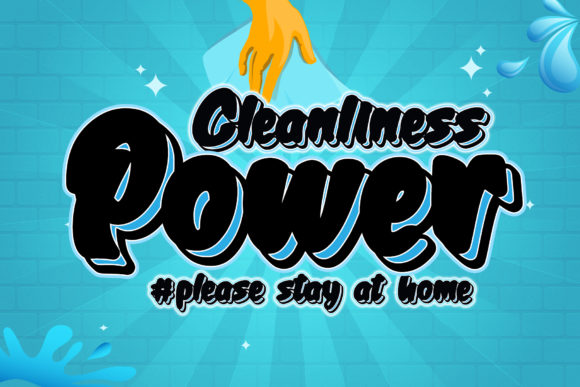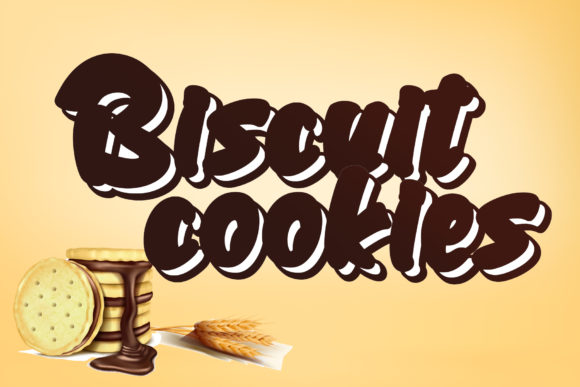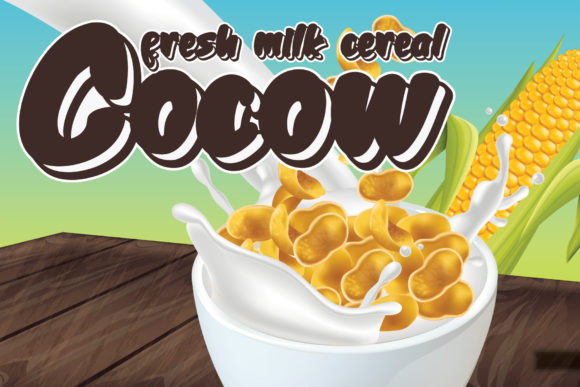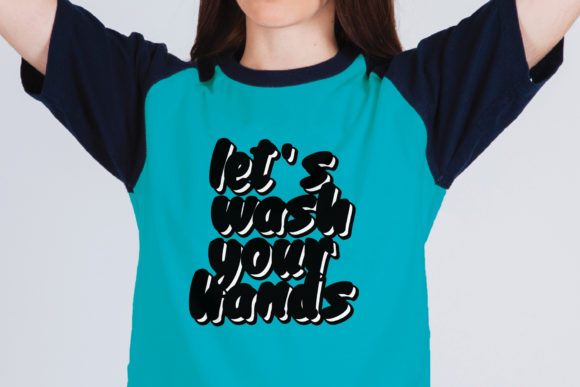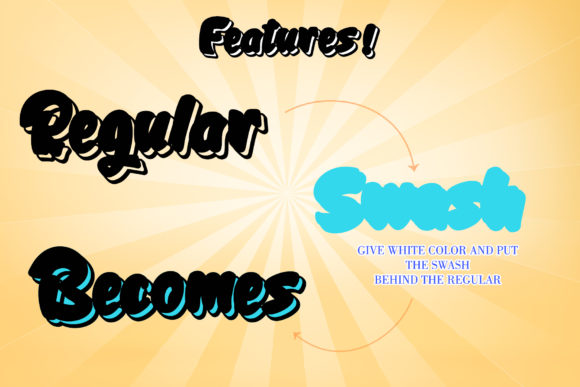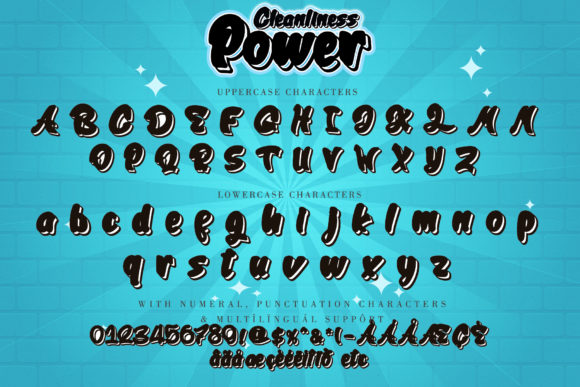
Cleanliness Power Font
About Cleanliness Power Font
Cleanliness Power is a bold script that looks elegant and classy. It will add a charming touch to anything project